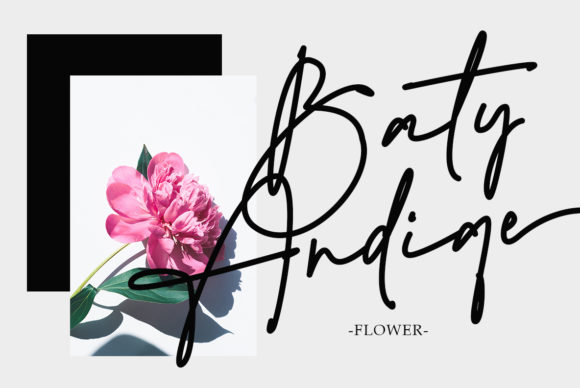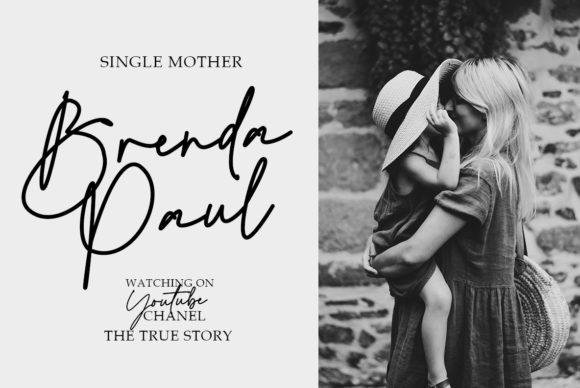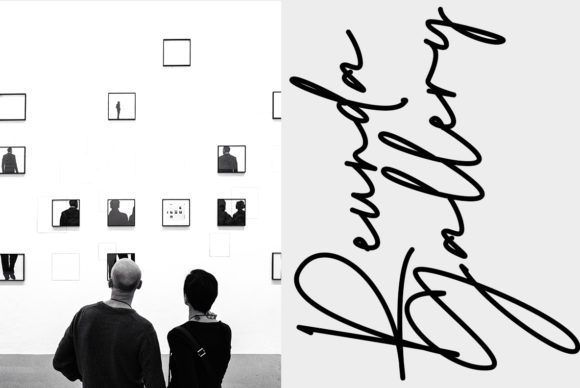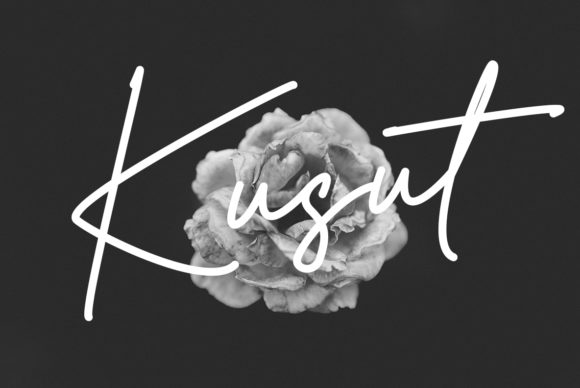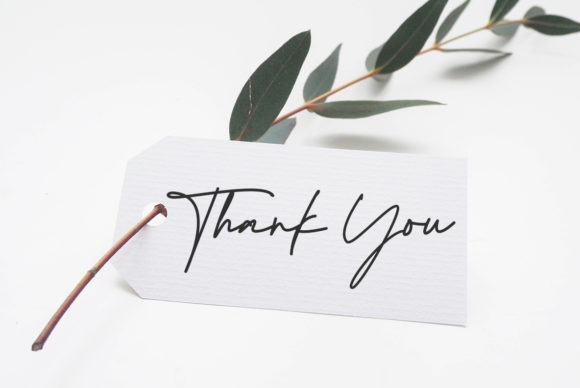
The Costay Font
About The Costay Font
The Costay is a bold yet elegant and timeless handwritten font. Fall in love with its incredibly versatile style and use it to create gorgeous wedding invitations, beautiful stationary art, eye-catching social media posts, and much more!